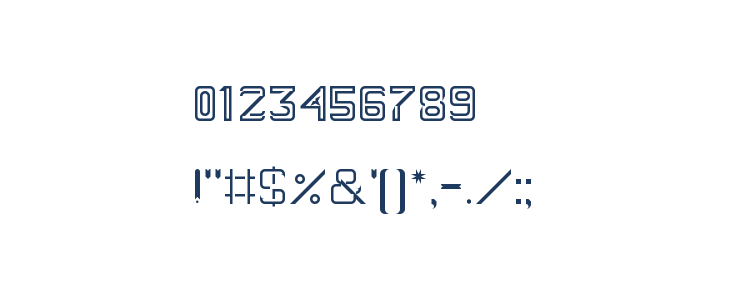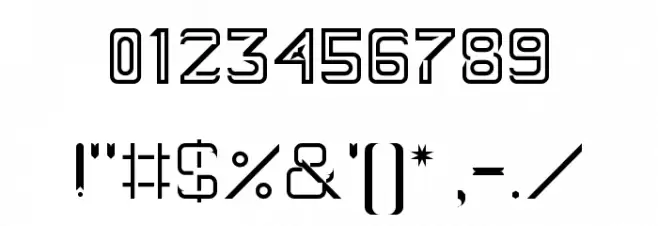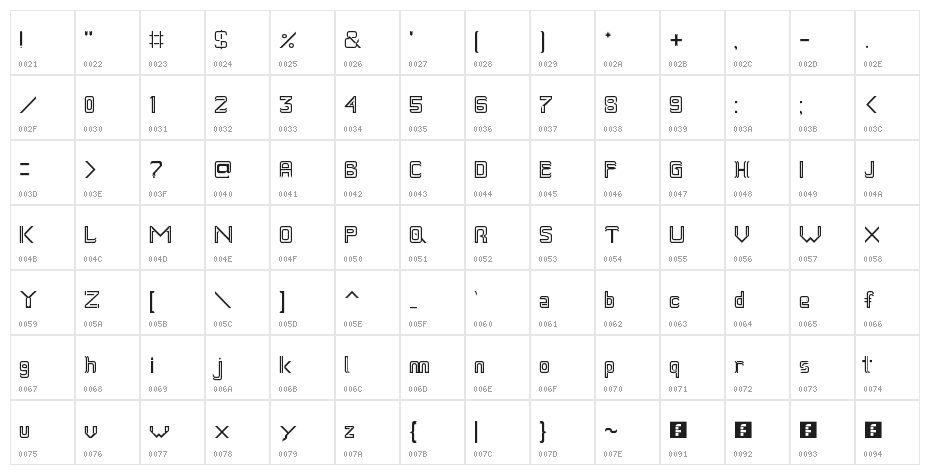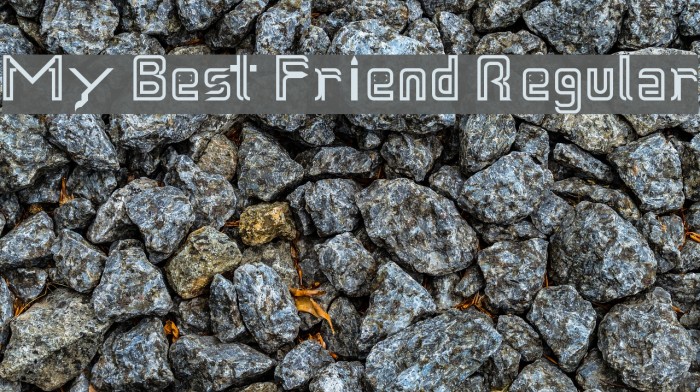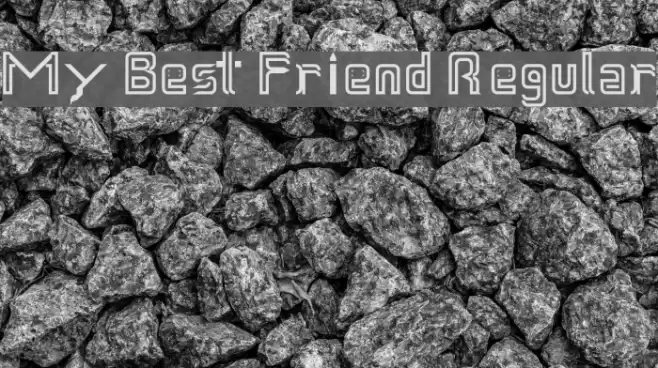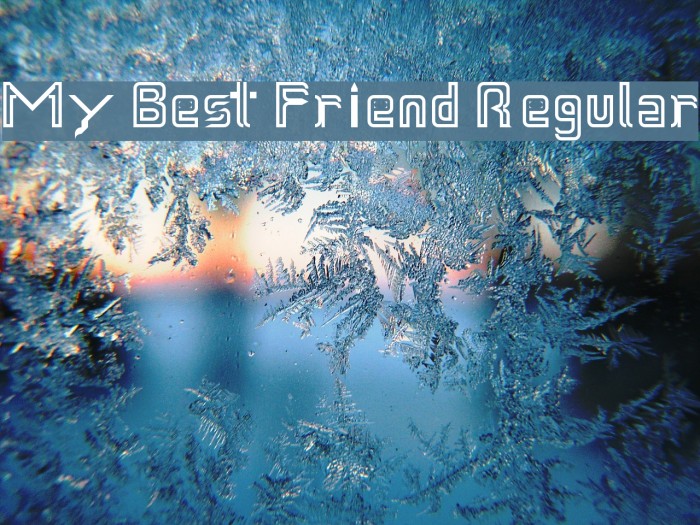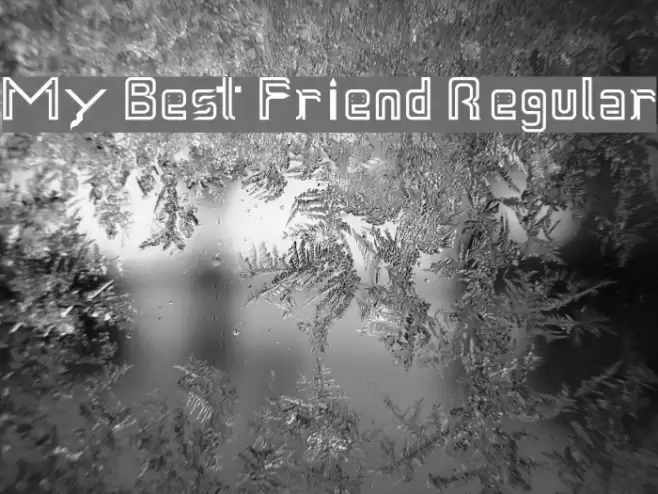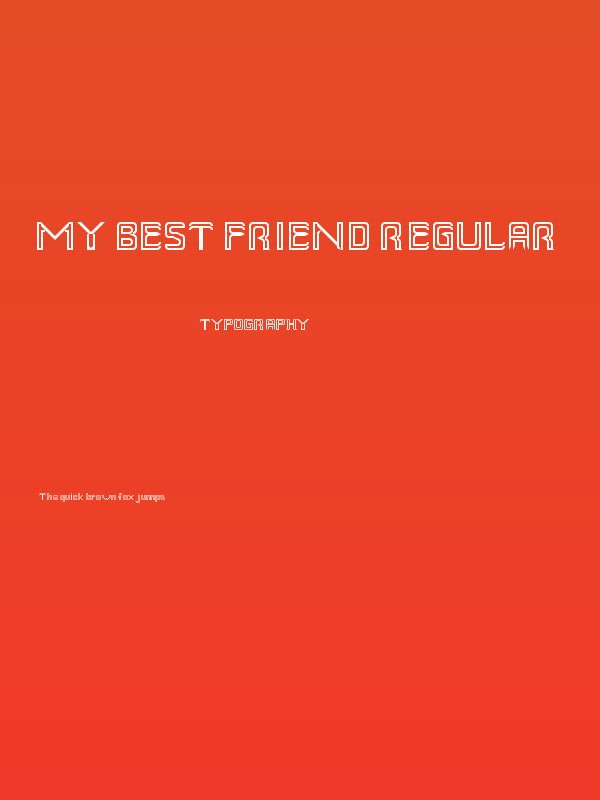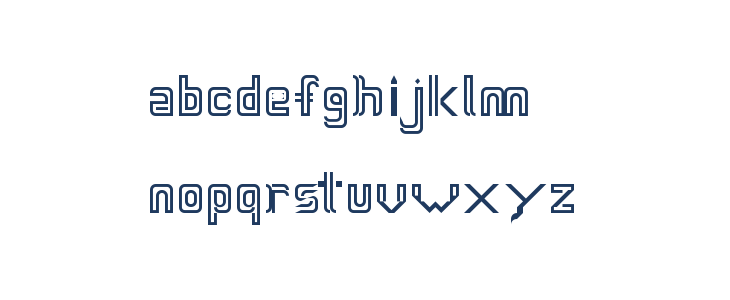
My Best Friend Regular Font
My Best Friend Regular Description
This font features a unique and modern design with a futuristic flair. The characters are structured with geometric precision, incorporating sharp angles and distinct cutouts that create an eye-catching effect. The uppercase letters are bold and commanding, while the lowercase letters maintain a consistent style with slightly softer edges. Numbers and special characters follow the same design principles, ensuring uniformity across all glyphs. The font's distinct style makes it suitable for projects that require a contemporary and innovative look.
Proposed ProjectsIdeal for tech branding, futuristic posters, video game titles, and innovative product packaging.